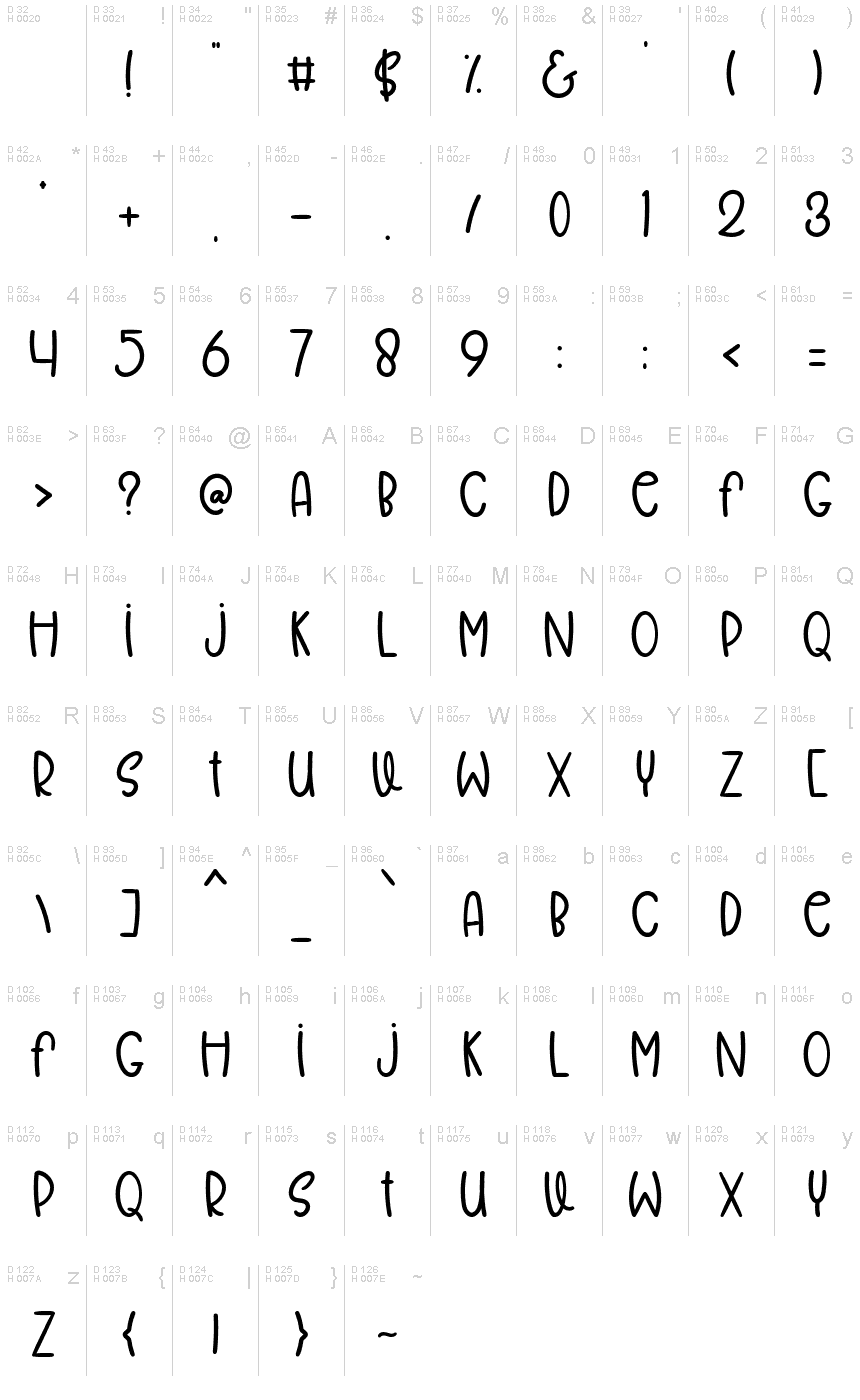
THE ROMANCE
The Romance, crafted by Andang Prasetyo, stands out as a semi-light handwritten font that speaks directly to the heart of creativity. Its cool and approachable character makes it an ideal choice for a plethora of design projects — from whimsical children's designs to inspirational chalkboard quotes and valuable teaching materials. With its authentic and friendly appeal, The Romance adds a personal touch that transforms any project into something realistic and relatable.
Whether you're looking to inject personality into your work or aiming for an effortlessly charming effect, The Romance is versatile enough to elevate your designs with its unique handwritten style.